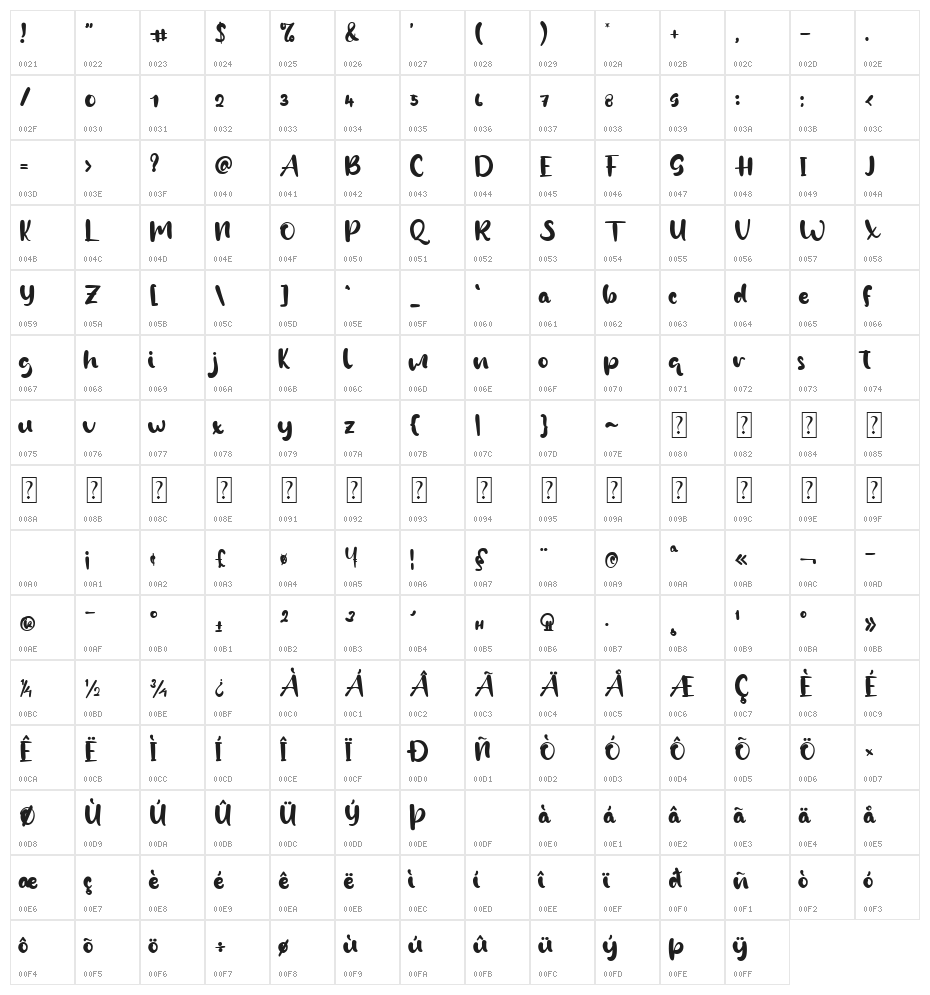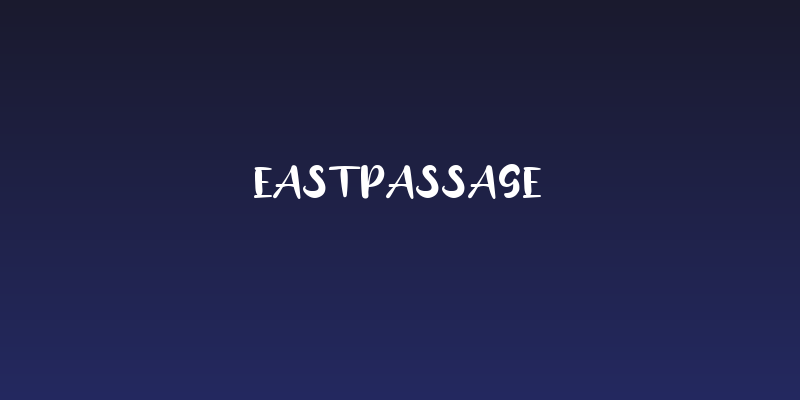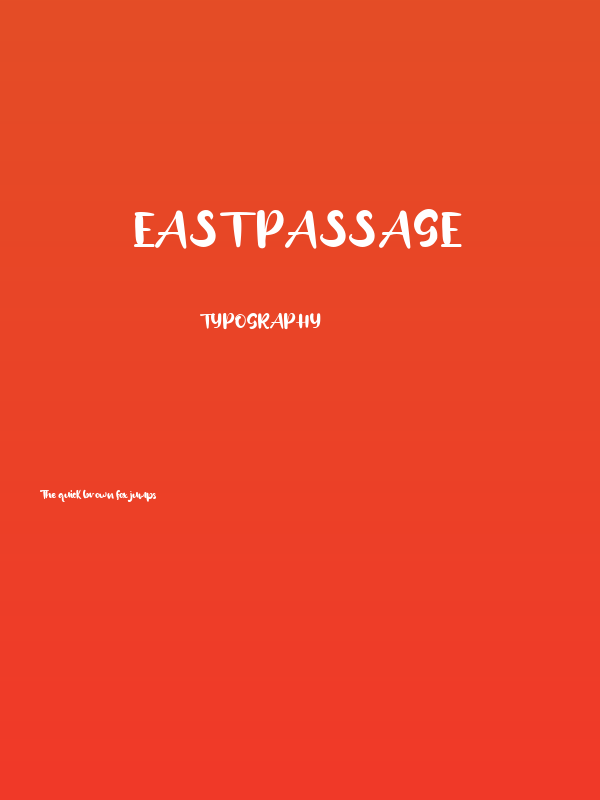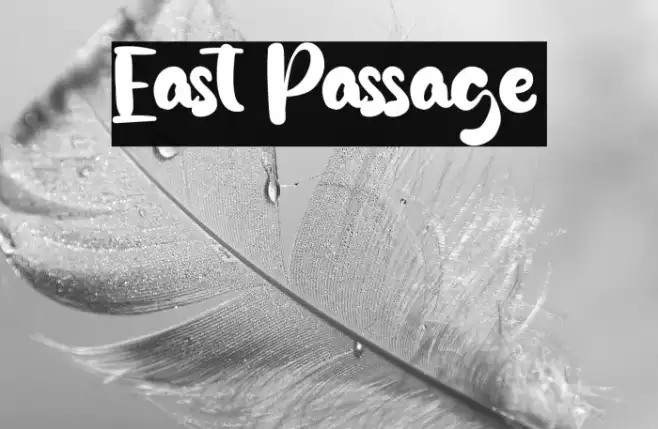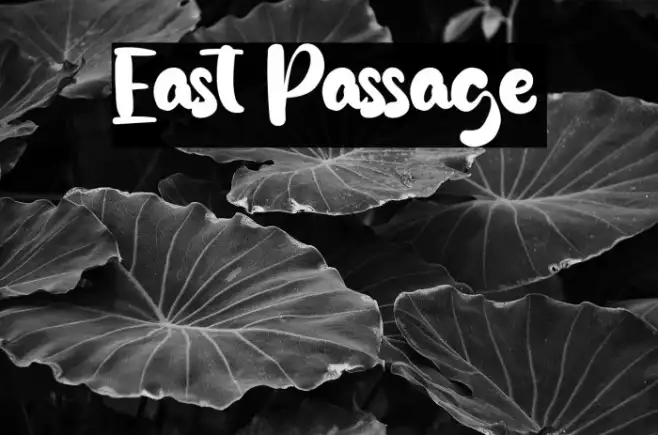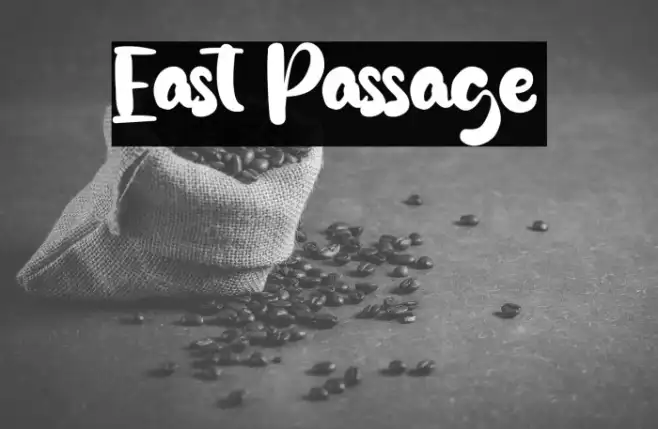
East Passage Font
East Passage Description
This font features a bold, playful script style with a handwritten appearance. The letters are rounded and have a smooth flow, giving a casual and friendly vibe. The uppercase letters are slightly larger and more prominent, while the lowercase letters maintain a consistent size and shape. The numbers and special characters follow the same playful style, making them easily recognizable and cohesive with the rest of the font. The overall look is modern and approachable, suitable for projects that require a personal touch.